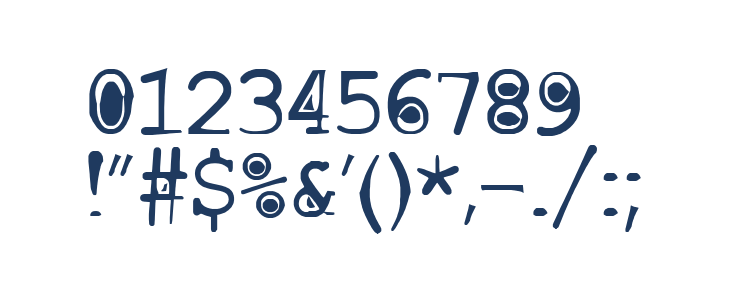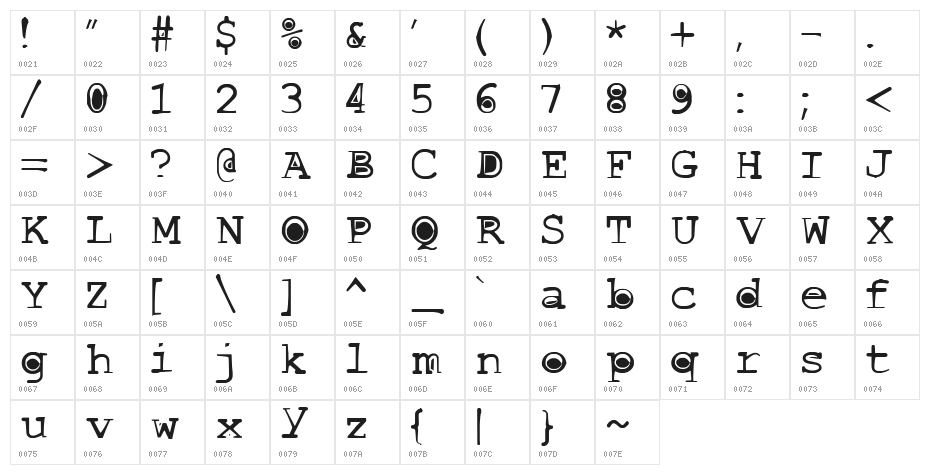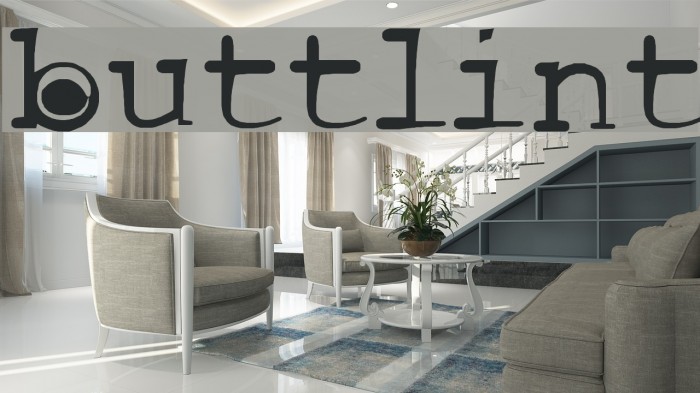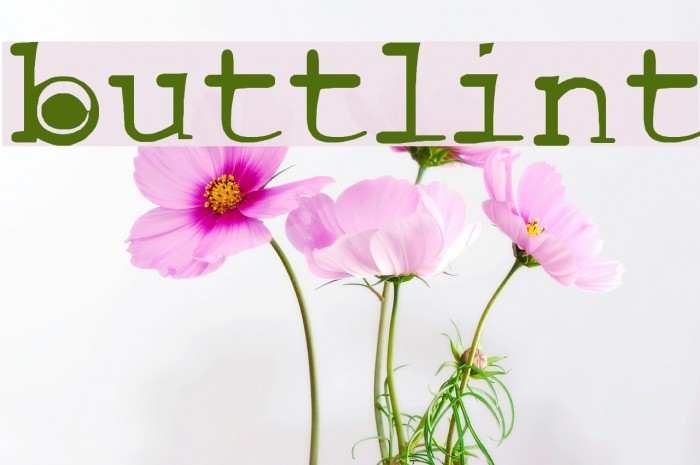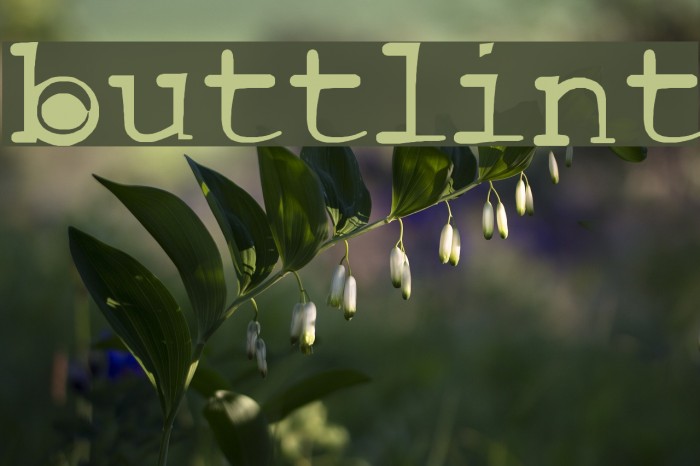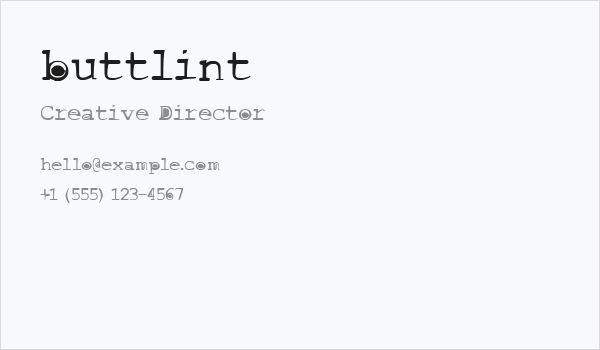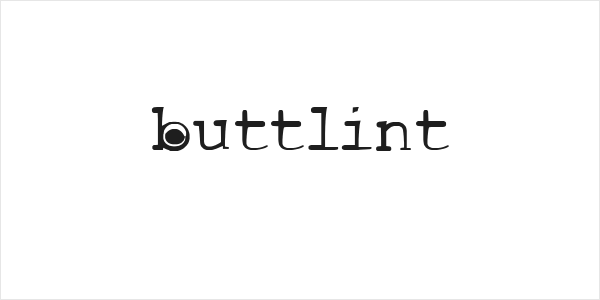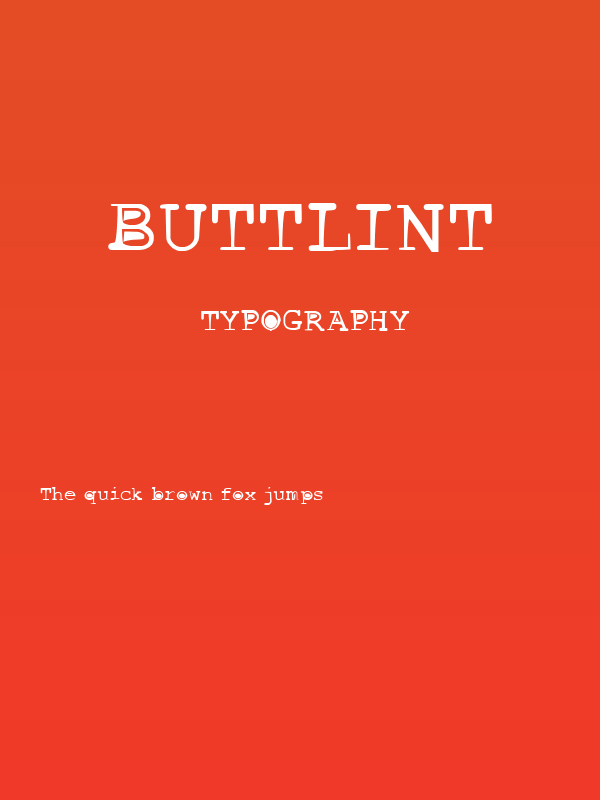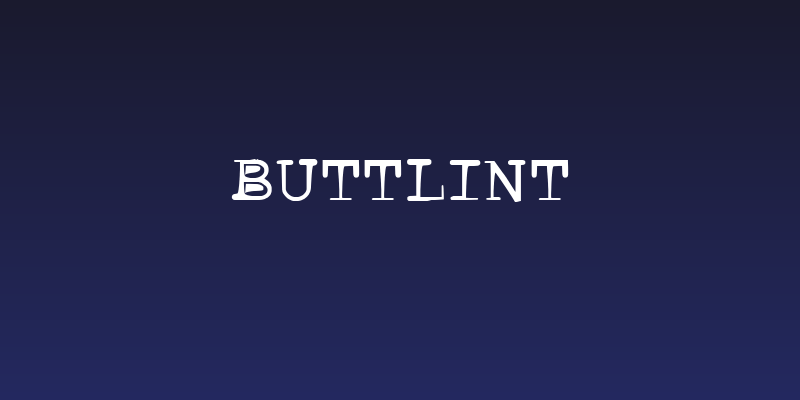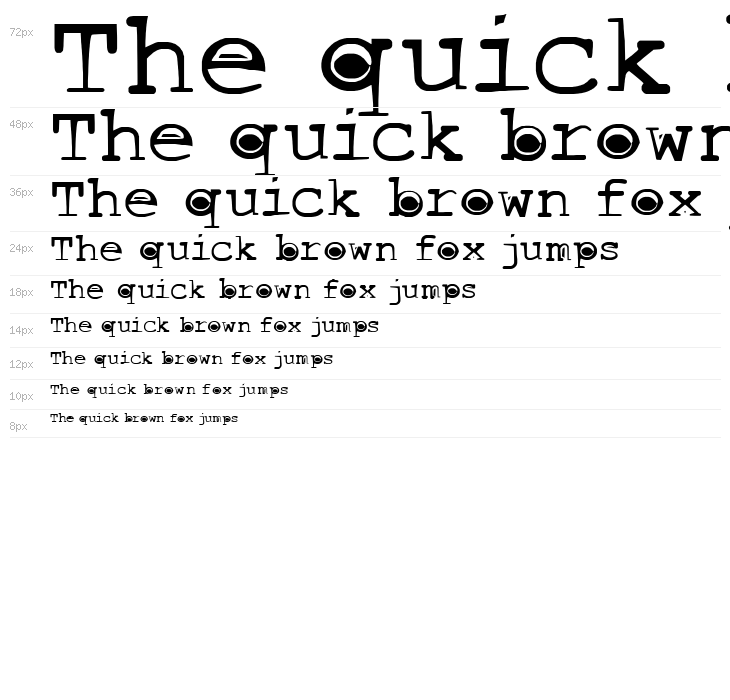
buttlint Font
buttlint Description
This font features a bold and playful style with a distinctly hand-drawn appearance. The uppercase letters are robust and slightly irregular, giving them a whimsical and approachable feel. The lowercase letters maintain this playful aesthetic, with some characters featuring unique flourishes that add to the font's charm. The numerals are bold and consistent with the overall style, ensuring readability while maintaining the font's distinctive character. Special characters are creatively designed, fitting seamlessly with the rest of the typeface. This font's unique style makes it ideal for projects that require a touch of personality and creativity.
| Overall Style | Playful, Hand-drawn |
| Proposed Projects | Great for children's books, playful branding, creative posters, and informal invitations. |